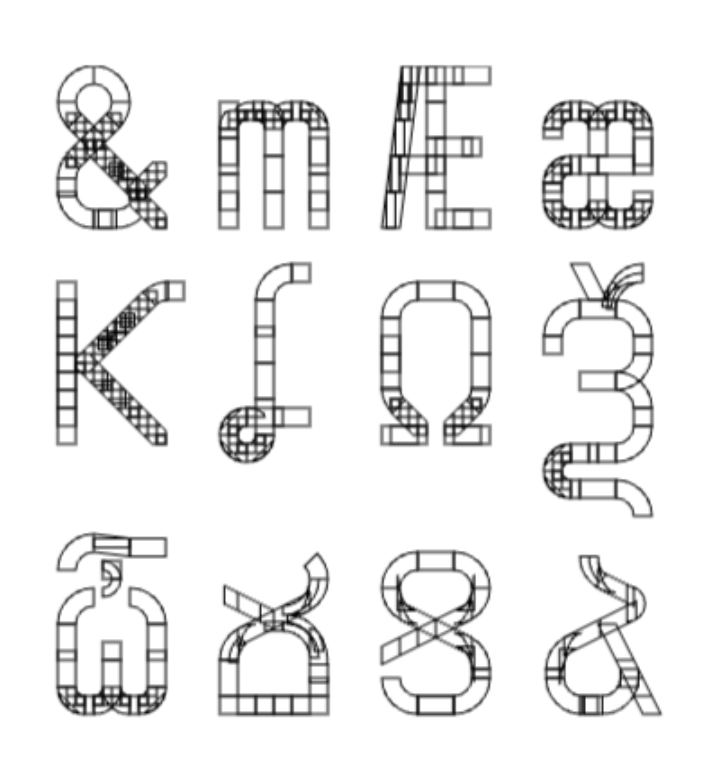
• WIP as a polished sans-serif font. Cmptrmn is the short of computer mono, but in textspeak style
Finished Blocks:
Latin (Basic, Latin1, A, B)
Modifier and Diacritics (basic)
Greek, Cyrillic & Armenian